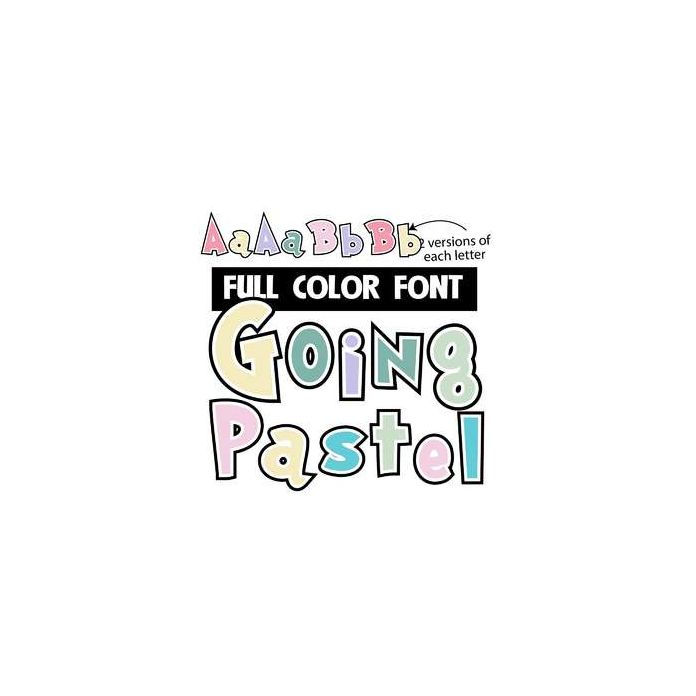
This full-color font features pastel colors and whimsical lettering. There is an upper and lowercase alt case you can access through your system's character map. This font works best for titles, displays, posters and more. Please note color fonts will show as black in non compatible programs. This font type is compatible with Silhouette Studio.